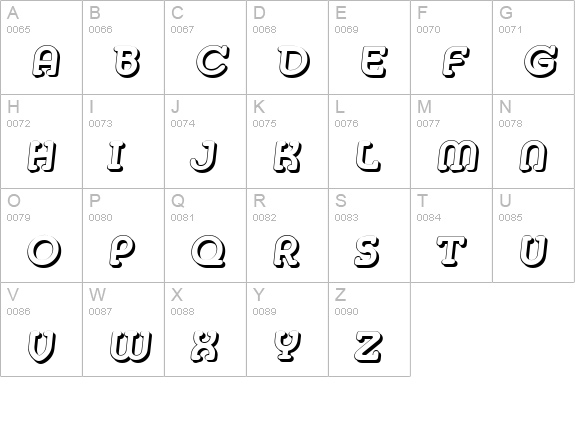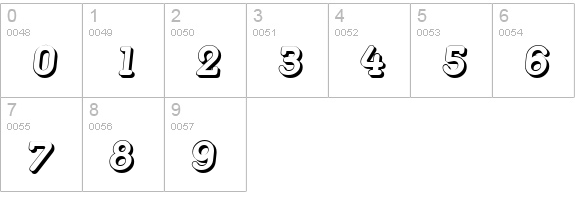
MexicoShadow-BoldItalic Font Details
Introducing MexicoShadow-BoldItalic font, a bold and dynamic typeface that exudes a sense of energy and modernity. The strong and distinctive italicized characters of MexicoShadow-BoldItalic make it perfect for adding a touch of sophistication and flair to your designs. This versatile font is ideal for a wide range of design projects, from branding to advertising to social media graphics. Its bold presence ensures that your message will stand out and make a lasting impact. Best of all, MexicoShadow-BoldItalic is available for free download at FontsMarket.com, making it easily accessible for all your creative needs. Don't miss out on this opportunity to elevate your designs with the stylish and eye-catching MexicoShadow-BoldItalic font.